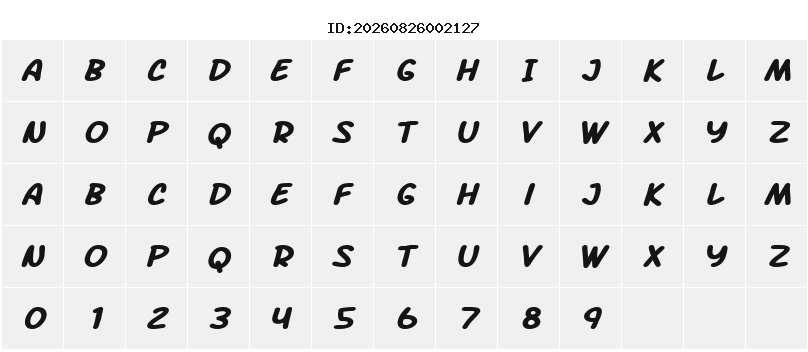
SF Arch Rival Extended Preview
• Font Name: SF Arch Rival Extended
• Font ID: ShyFontsTypeFoundry: SF Arch Rival Extended Bold Italic: 2000
• Full Font Name: SF Arch Rival Extended Bold Italic
• PostScript Name: SFArchRivalExtended-BoldItalic
• Character Count: 203
• Designer: ShyFonts Type Foundry
• Description: SF Arch Rival Extended Bold Italic is a trademark of the ShyFonts Type Foundry.
About SF Arch Rival Extended.ttf
SF Arch Rival Extended.ttf is a modern, elegant sans-serif font designed for ultimate readability and visual harmony. Perfect for branding, headlines, web design, and print materials.